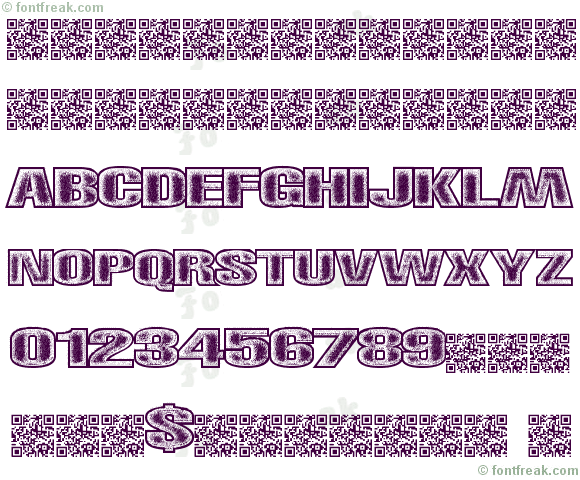
righttrack
About righttrack
The Righttrack font by Xerographer Fonts is a striking display typeface that captivates with its unique visual characteristics. This font features a bold, sans-serif style that makes a strong impression in any design context. Its stroke weight is consistent, providing a sturdy and reliable appearance, while the subtle contrast in the characters adds depth without overwhelming the viewer. The spacing is thoughtfully arranged, allowing for clarity and legibility even at larger sizes, making it ideal for eye-catching headlines and titles.
Righttrack is particularly well-suited for a variety of creative applications. It shines in settings like movie posters, where its bold presence can effectively capture the audience's attention. Additionally, this font works wonderfully for event flyers, ensuring that essential information stands out. Its playful yet commanding nature makes it a great choice for restaurant menus, offering a modern twist that can elevate the dining experience. Righttrack is also perfect for promotional materials, helping small business owners create memorable branding that resonates with their target audience. Content creators will find it an invaluable asset for social media graphics, making posts visually appealing and engaging.
The target audience for the Righttrack font includes graphic designers seeking to enhance their projects with a distinctive typeface, as well as small business owners looking to establish a strong visual identity. Content creators will also appreciate its versatility and impact.
What truly sets the Righttrack font apart is its ability to balance boldness with elegance, making it an exceptional choice for a wide range of creative endeavors. With its free availability, the Righttrack font free download opens doors for anyone looking to elevate their design work without compromising on quality. Embrace the unique charm of Righttrack and let it bring your projects to life.